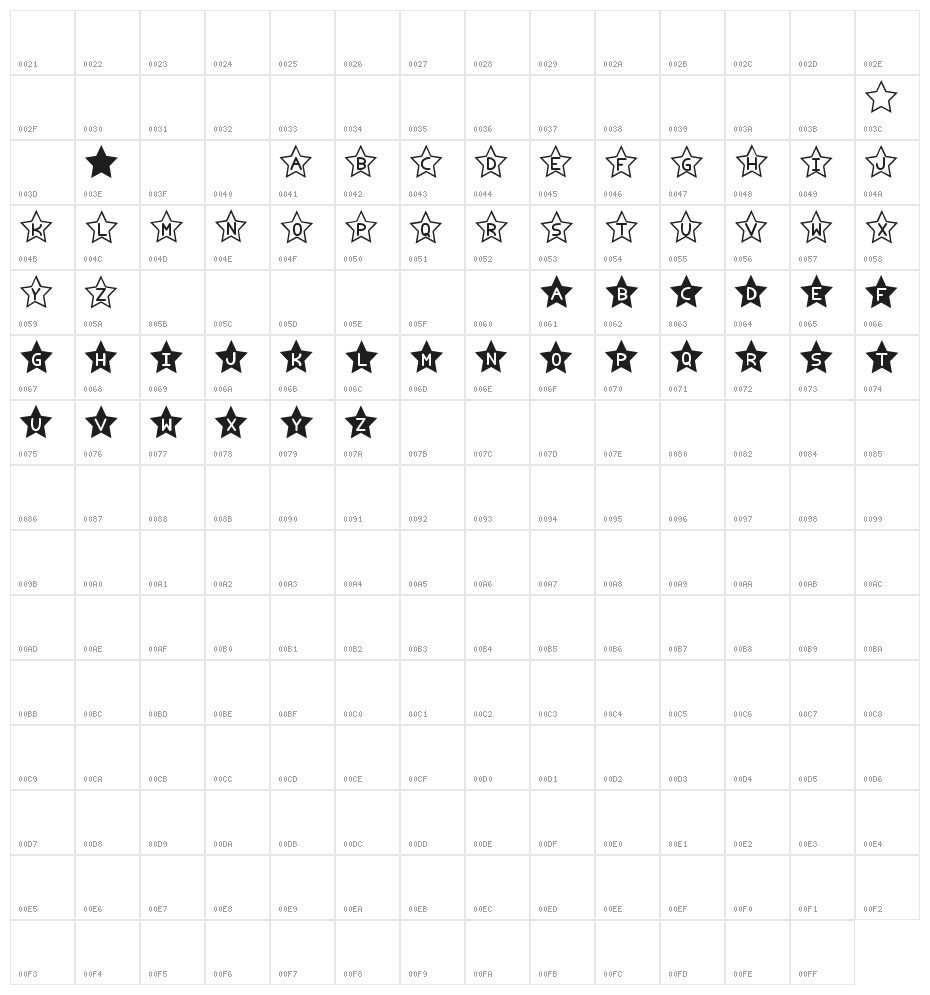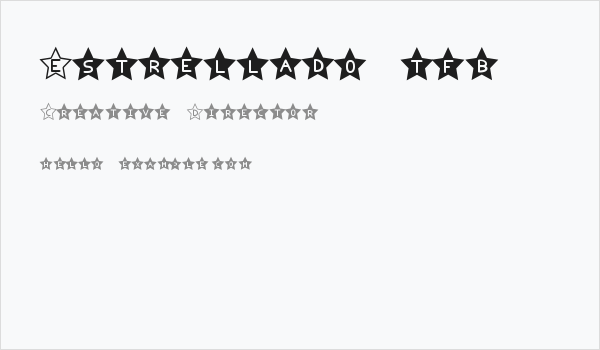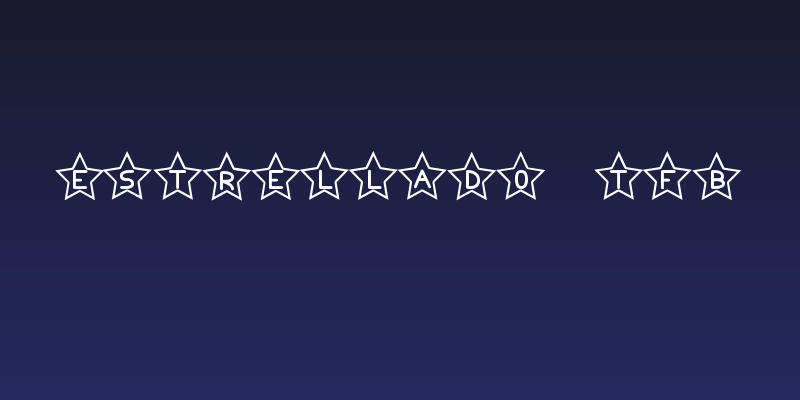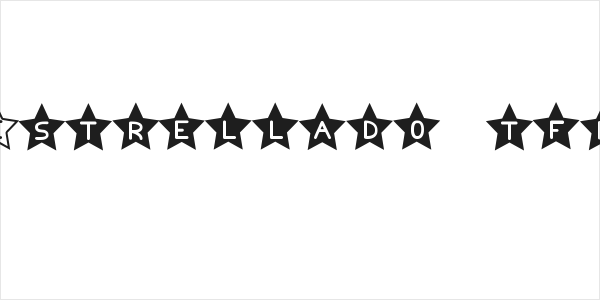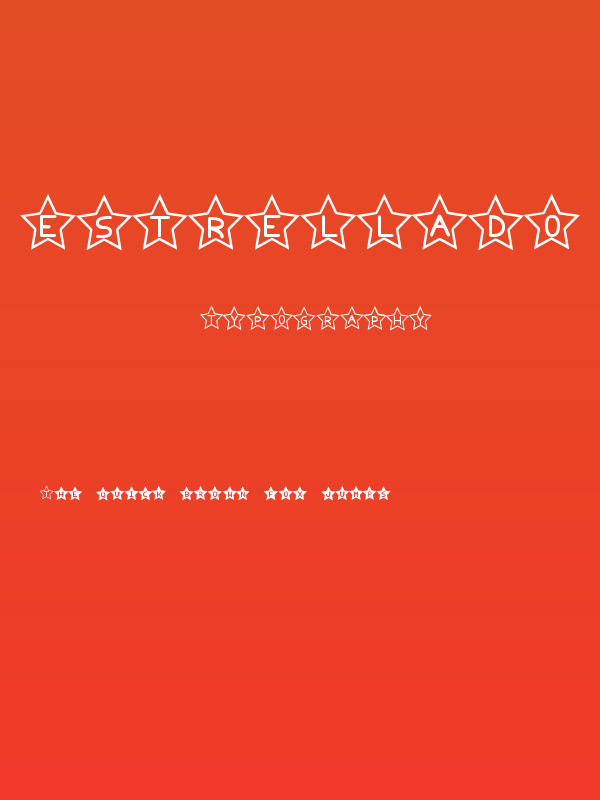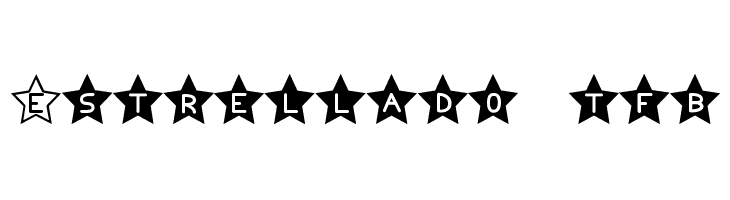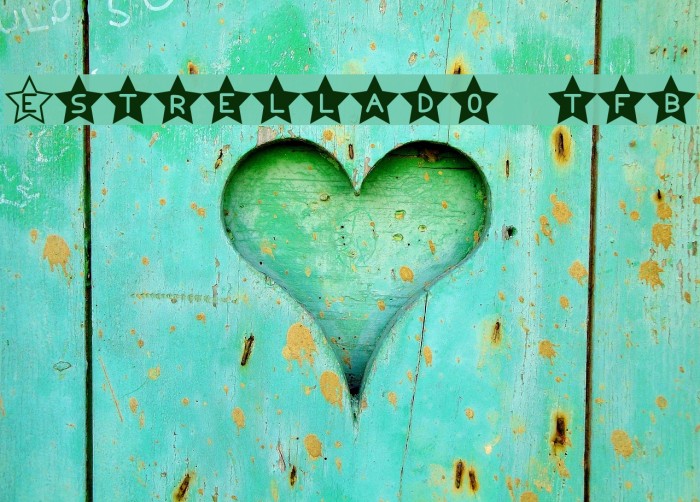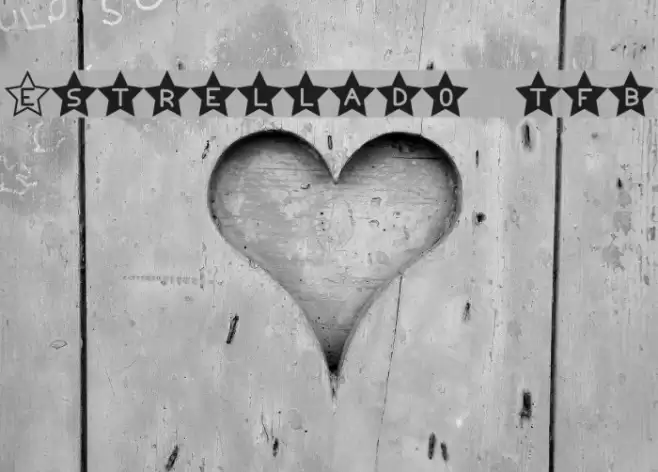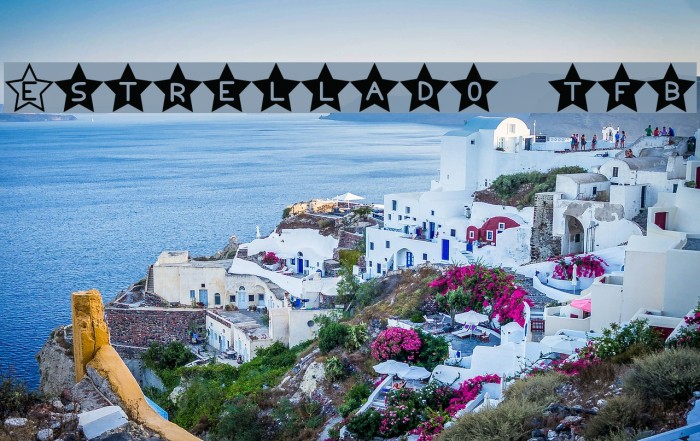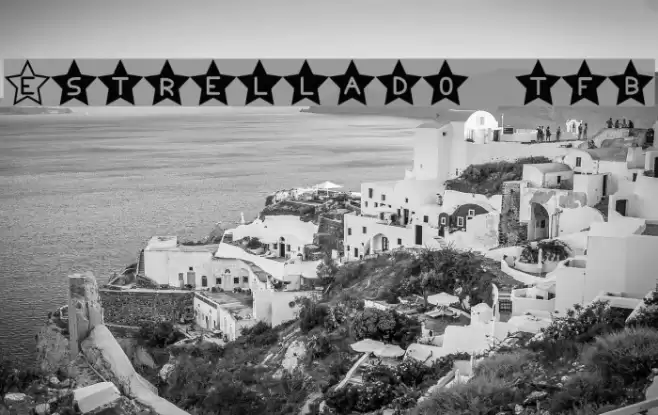
Estrellado tfb Font
Estrellado tfb Description
This decorative font features each character enclosed within a star shape, creating a playful and eye-catching design. The letters are bold and uppercase, with a consistent thickness that ensures readability. The star outlines add a whimsical touch, making it ideal for creative and fun projects. The font's unique style is perfect for capturing attention and conveying a sense of excitement and celebration. It is particularly suited for use in headings, posters, and other display purposes where a standout appearance is desired.
| Proposed Projects | Ideal for party invitations, children's book covers, festive banners, and playful branding. |